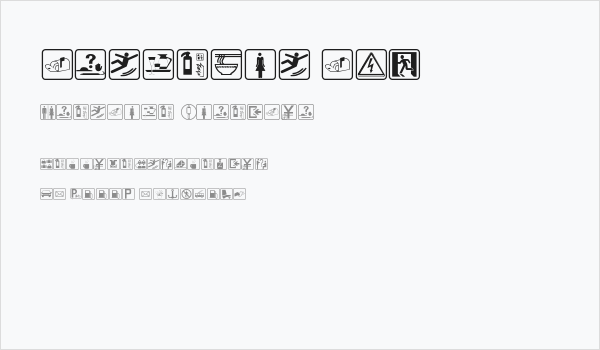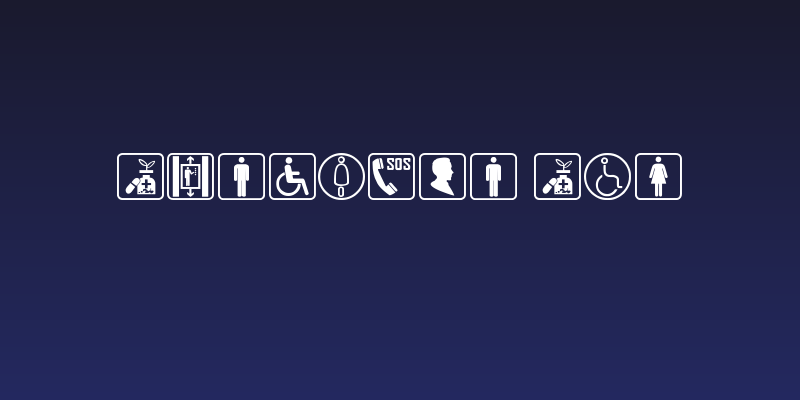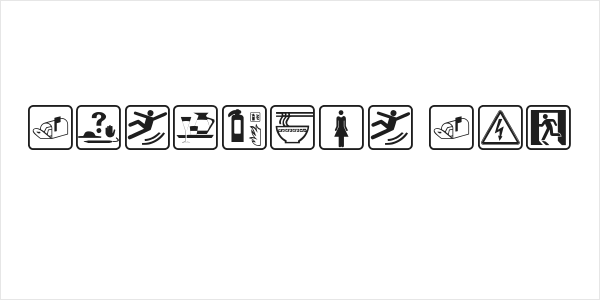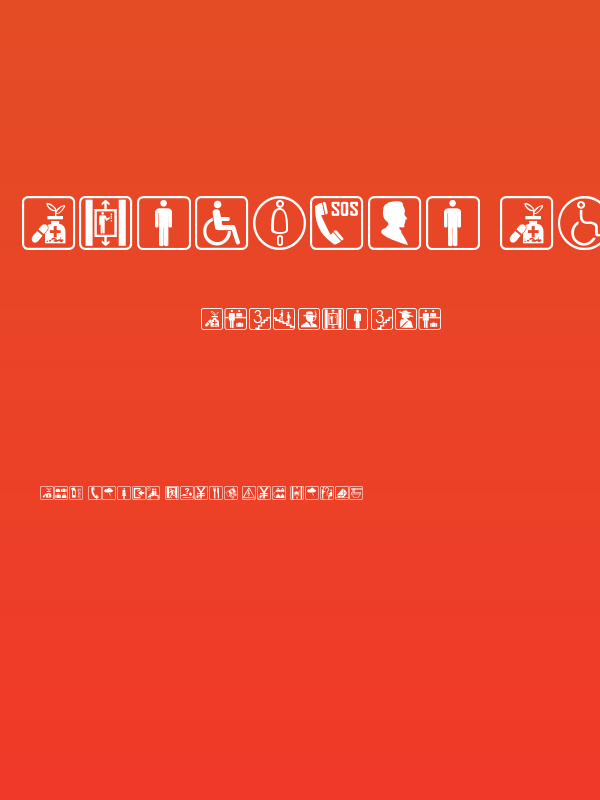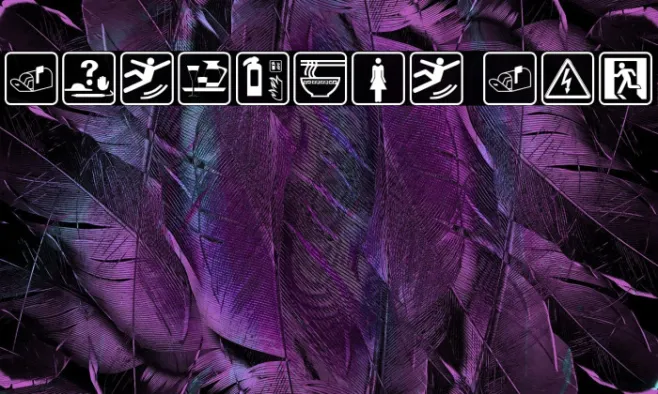
travesia tfb Font
travesia tfb Description
A pictogram-based dingbat font featuring a wide range of transportation, accessibility, public facility, and informational icons, all enclosed in rounded or square borders with a consistent, bold, and highly legible style.
| Overall Style | Modern, Functional, Minimalist |
| Use Case | Signage, Maps, Infographics, Public Information Displays |
| Proposed Projects | Wayfinding systems, airport or transit signage, public facility maps, informational brochures, urban navigation apps. |